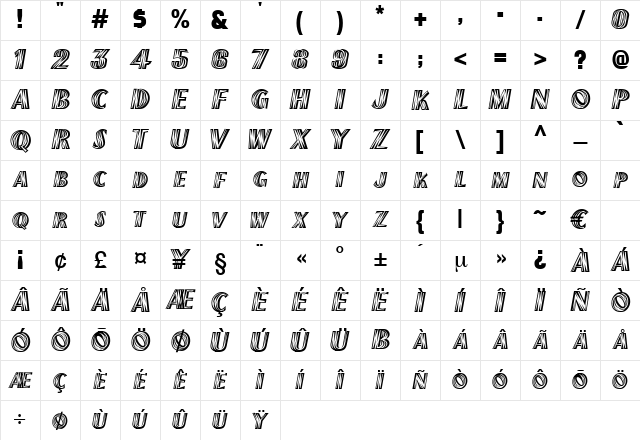
Palisander Regular
Design Context for Palisander
Palisander is a composed and adaptable typeface that performs quietly and consistently across a wide range of design contexts.